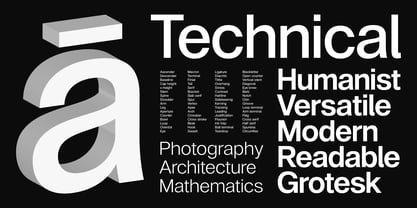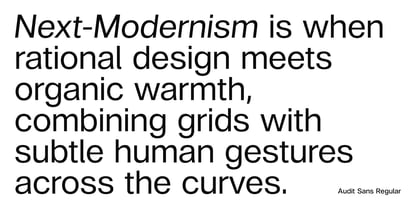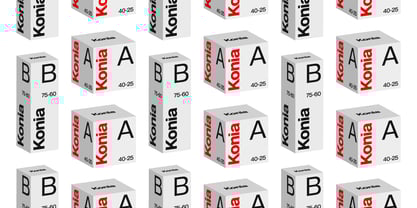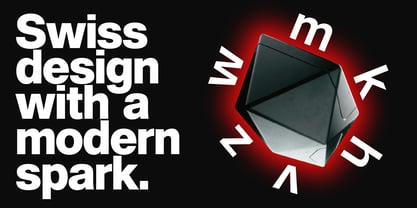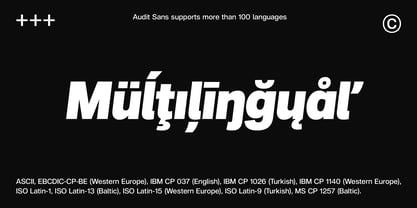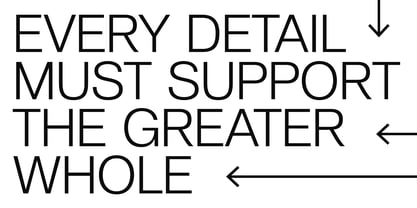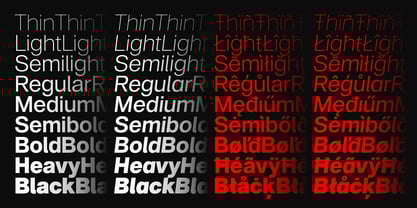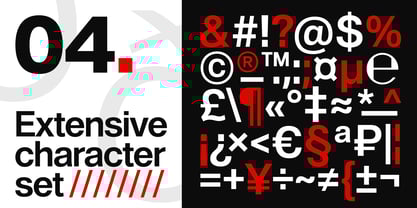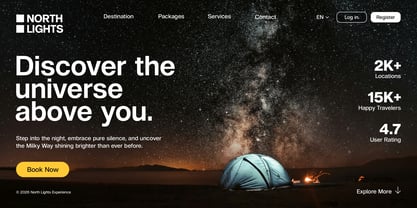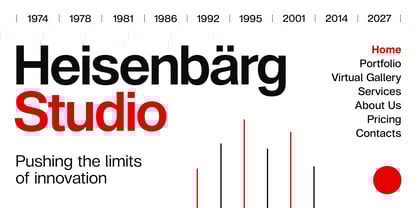
Audit Sans
von Gravitype
Die Schriftfamilie Audit Sans wurde von Marco Pezzotta entworfen und von Gravitype veröffentlicht. Audit Sans enthält 18 Stile und Familienpaketoptionen.
Audit Sans is a contemporary sans serif typeface designed to be distinctive while maintaining a neutral personality. Its grotesque style is enriched by humanist details in the curves to give the whole type system a unique aesthetic. Created with legibility and versatility at its core, Audit Sans adapts perfectly across mediums. Whether in print: posters, packaging, editorial layouts, style magazines; or in digital environments such as websites and apps, it maintains a confident presence. Its flexible nature allows Audit Sans to perform equally well in formal and informal settings, scaling excellently from bold headlines, titles, and logos to clean, readable body text. Professional, reliable and elegant; it stands out in every situation. It's the perfect Helvetica and Arial alternative. Audit sans includes OpenType features: - stylistic alternates for lowercase letters “a” and “l”, and uppercase “J” - discretionary ligature for “ff” - advanced kerning balanced with high precision Audit Sans features 372 glyphs and supports more than 100 languages.